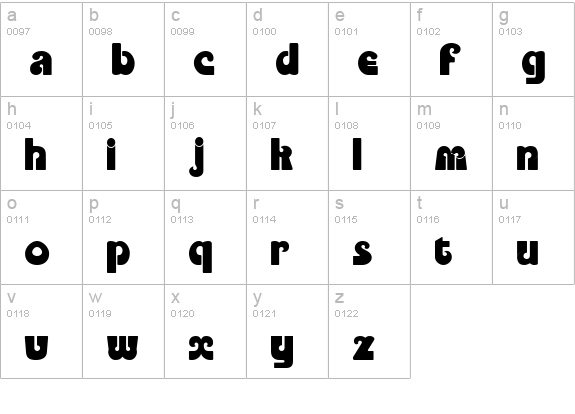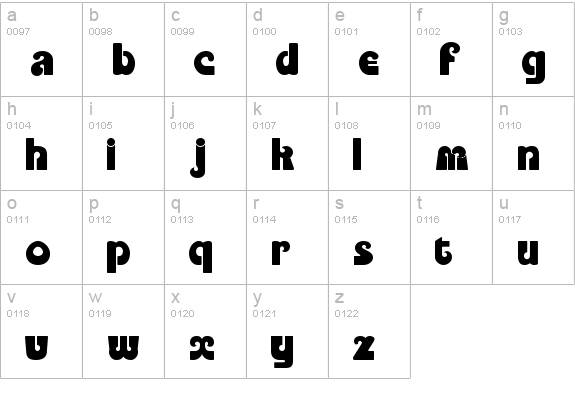
Partite Display SSi Font Details
Partite Display SSi is a stunning and sophisticated font that will elevate any design project to new heights. With its elegant and refined appearance, this font is perfect for adding a touch of class to invitations, logos, headlines, and more. Featuring clean lines and a modern style, Partite Display SSi exudes a sense of professionalism and attention to detail. Each character is meticulously crafted to ensure legibility and readability, making it ideal for both print and digital applications. What makes Partite Display SSi even more desirable is the fact that it is available for free. Yes, you read that right! This exceptional font can be freely downloaded at FontsMarket.com, allowing you to enhance your designs without breaking the bank. Whether you're a professional designer or simply someone looking to add a touch of elegance to their personal projects, Partite Display SSi is the font for you. Its versatility and timeless appeal make it suitable for a wide range of creative endeavors. So why wait? Download Partite Display SSi today and unlock the potential to create visually stunning and captivating designs. With its free availability at FontsMarket.com, there's no reason not to give this font a try and see the transformative impact it can have on your projects. Don't miss out on this opportunity to elevate your design game and make a lasting impression.